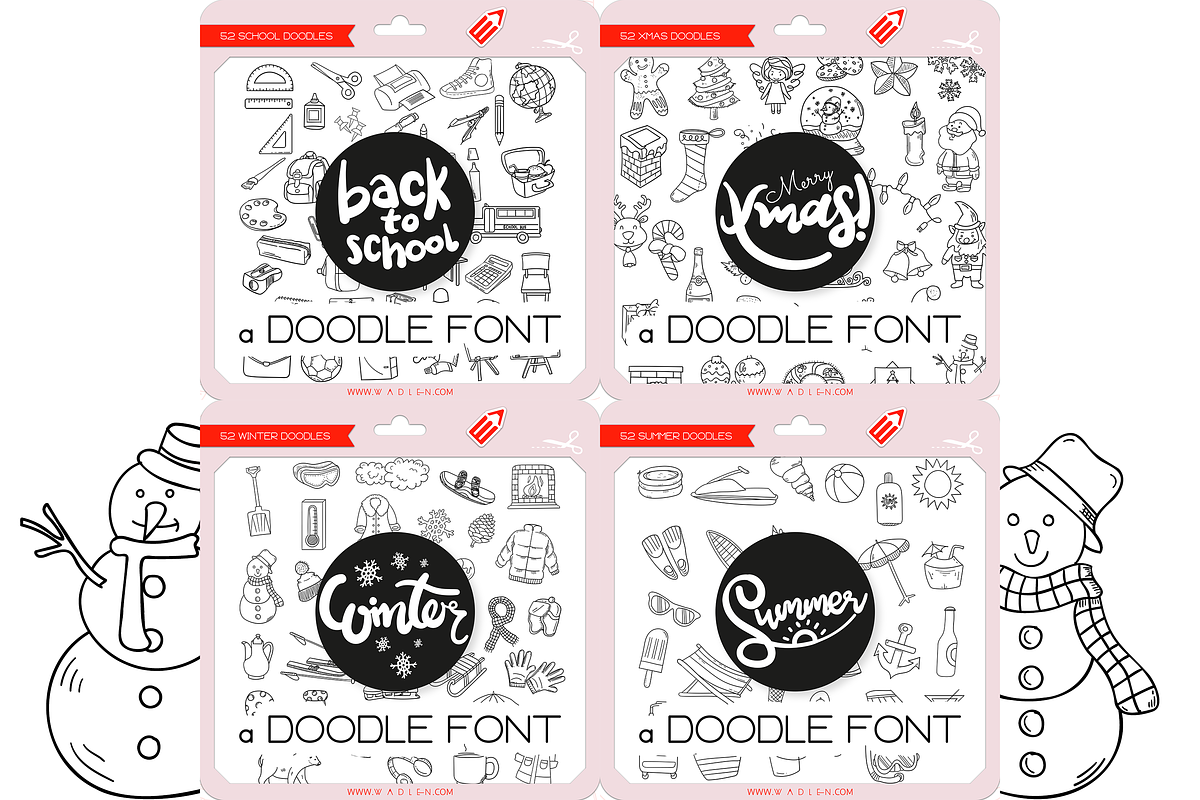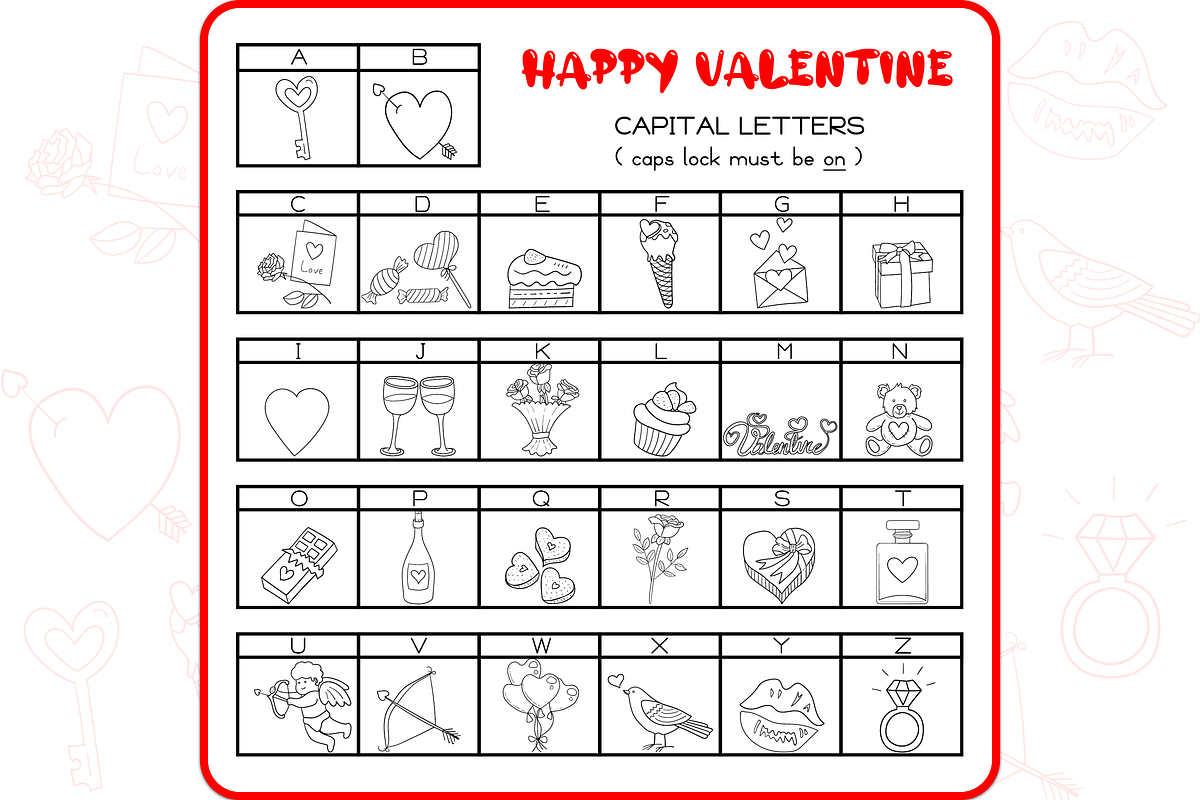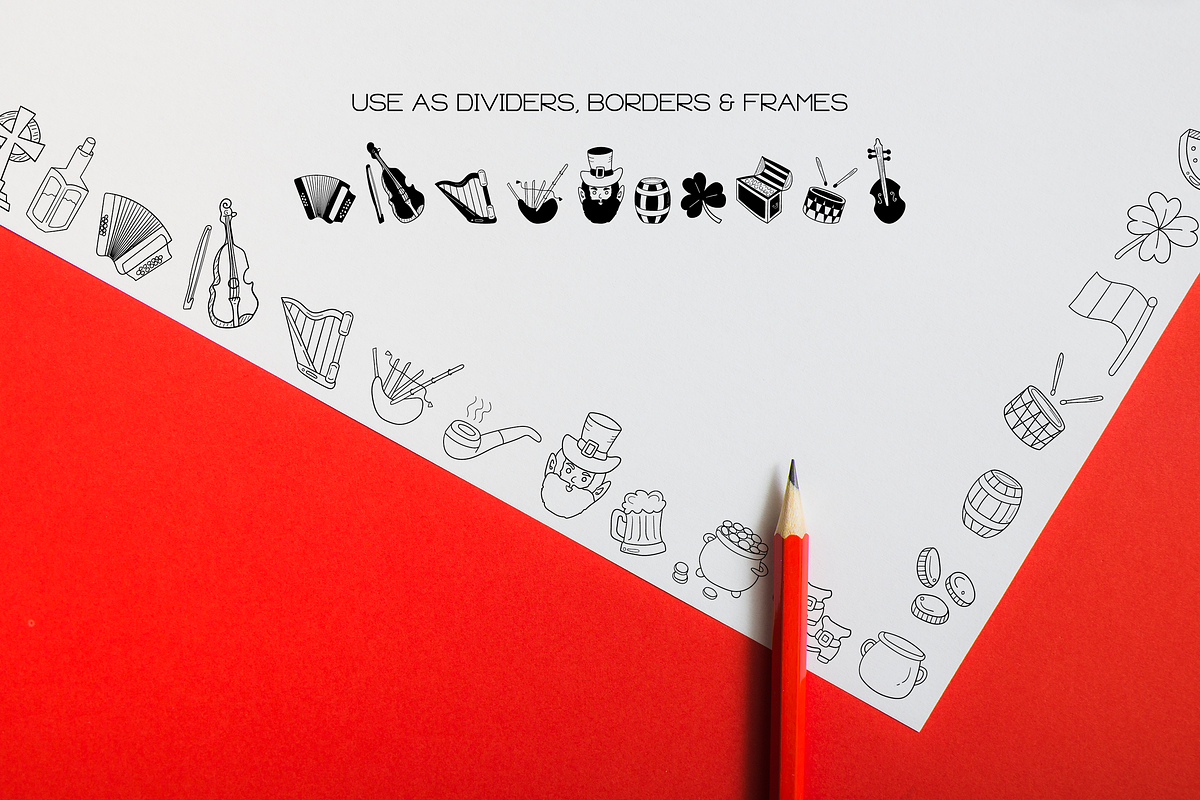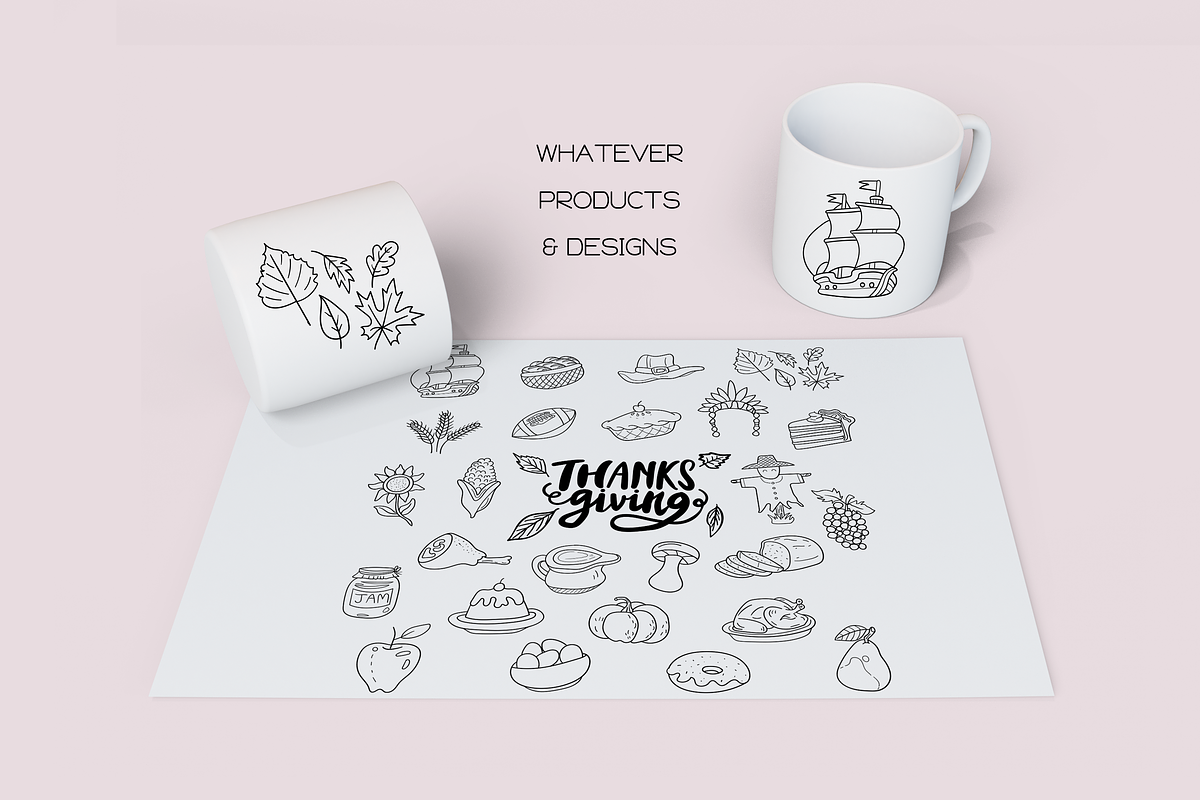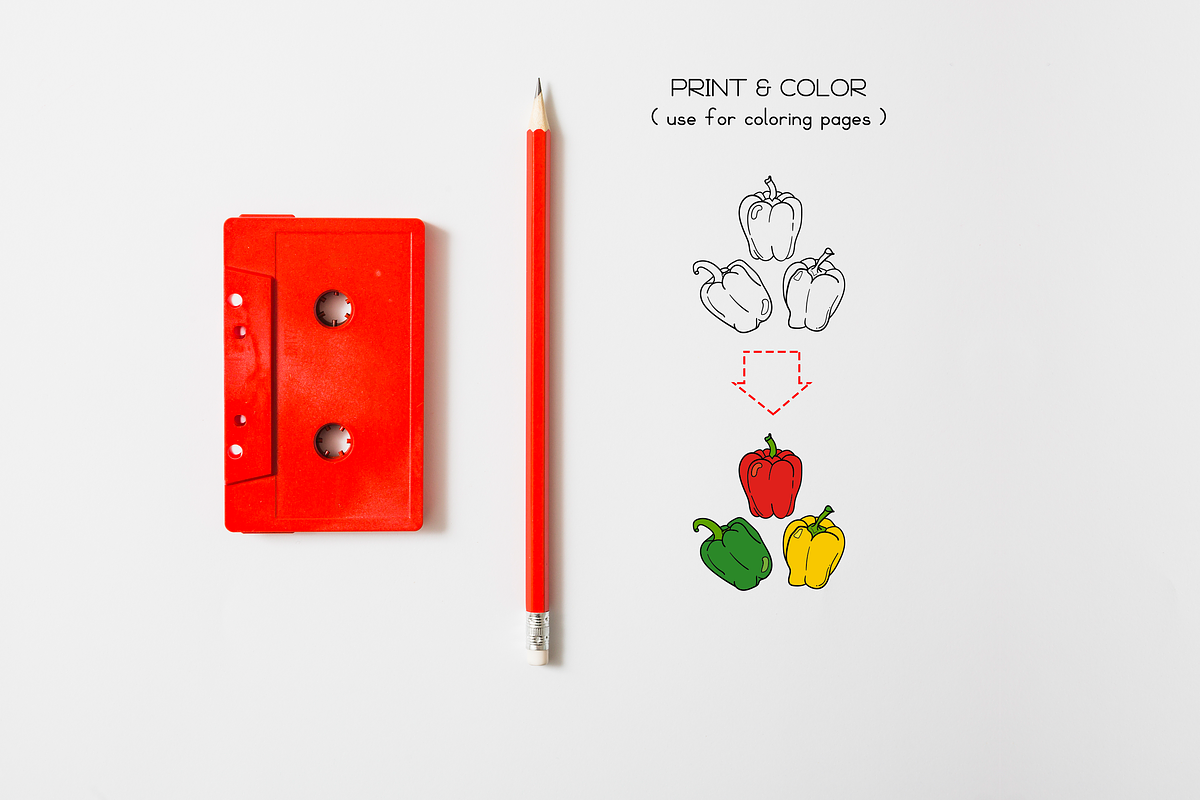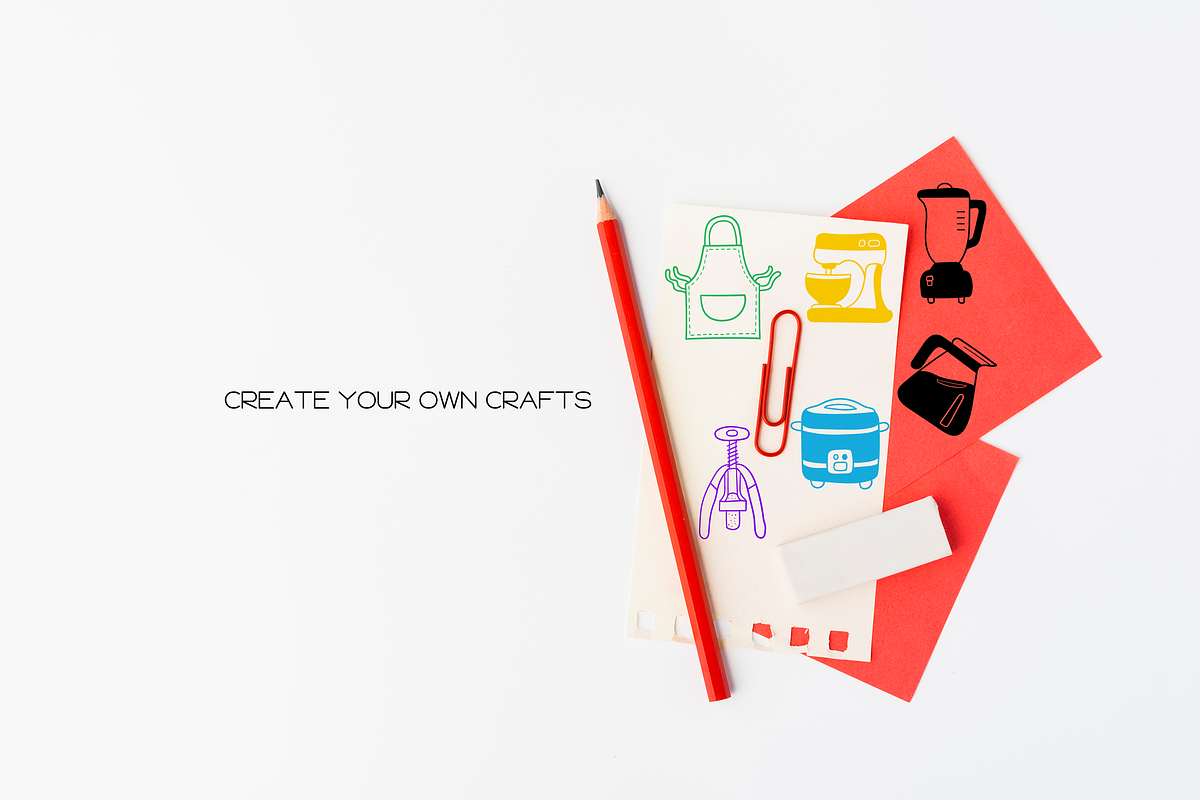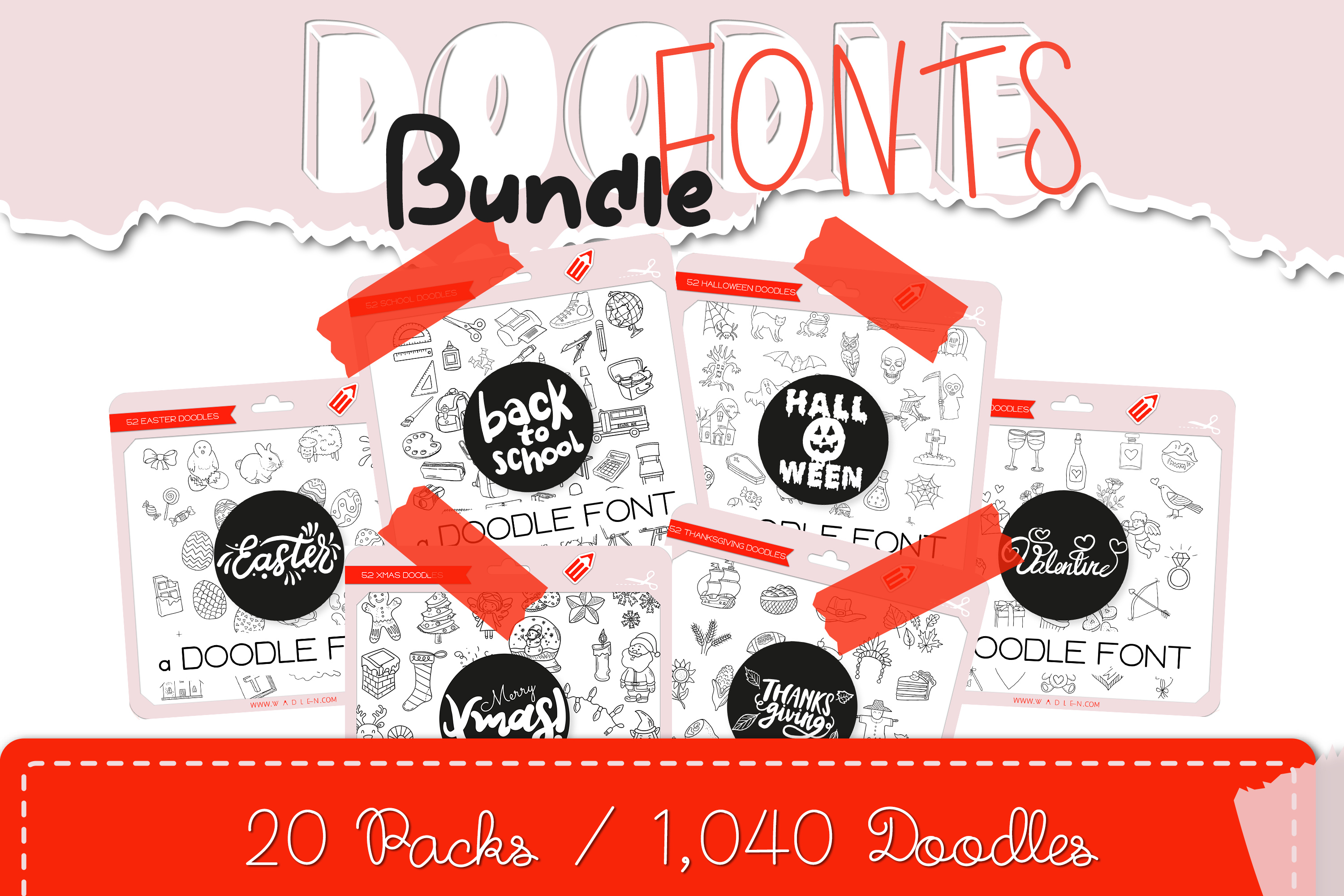
The Doodle Fonts Bundle
The Doodle Fonts Bundle is here with 20 themes of premium cute & sweet handwritten doodle fonts. This bundle has a wide range of themes such as Holidays & Seasonal, House & Rooms, Foods.
Doodle Fonts Bundle is perfectly suited for Quotes, Branding, Logos, Greeting Cards, Invitations, Stationery Design, Children's designs, T-shirts, Packaging designs, Poster, Typographic designs, Papercrafts, Digital crafts, and so much more!
It’s great for crafters and graphic artists alike. Compatible with tools such as Photoshop or Silhouette design studio. Add it to your designs and make them outstanding!
Fonts Included:
- 52 Back to School Doodles
- 52 Xmas Doodles
- 52 Winter Doodles
- 52 Summer Doodles
- 52 Autumn Doodles
- 52 Spring Doodles
- 52 Easter Doodles
- 52 Valentine Doodles
- 52 Halloween Doodles
- 52 Thanksgiving Doodles
- 52 St. Patrick Doodles
- 52 Earth Day Doodles
- 52 New Year Doodles
- 52 Bedroom Doodles
- 52 Kitchen Doodles
- 52 Bathroom Doodles
- 52 Living Room Doodles
- 52 Garden Doodles
- 52 Fruits Doodles
- 52 Vegetables Doodles